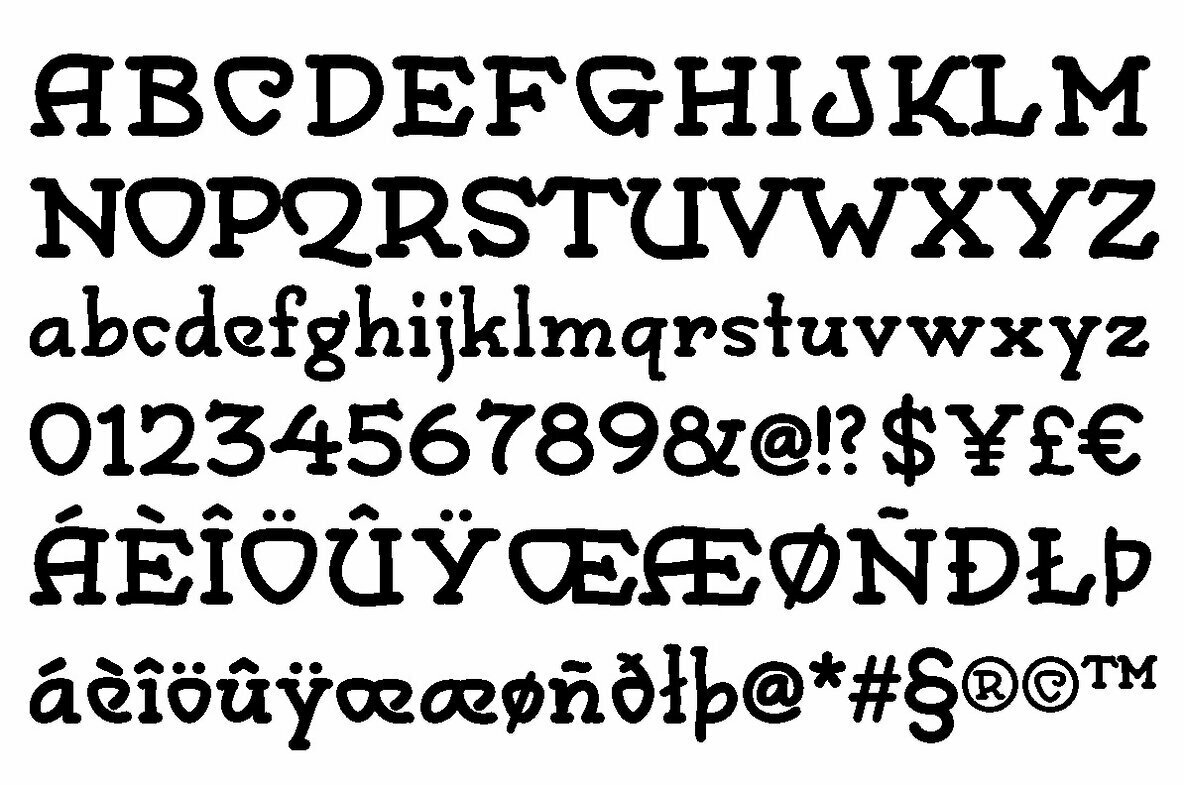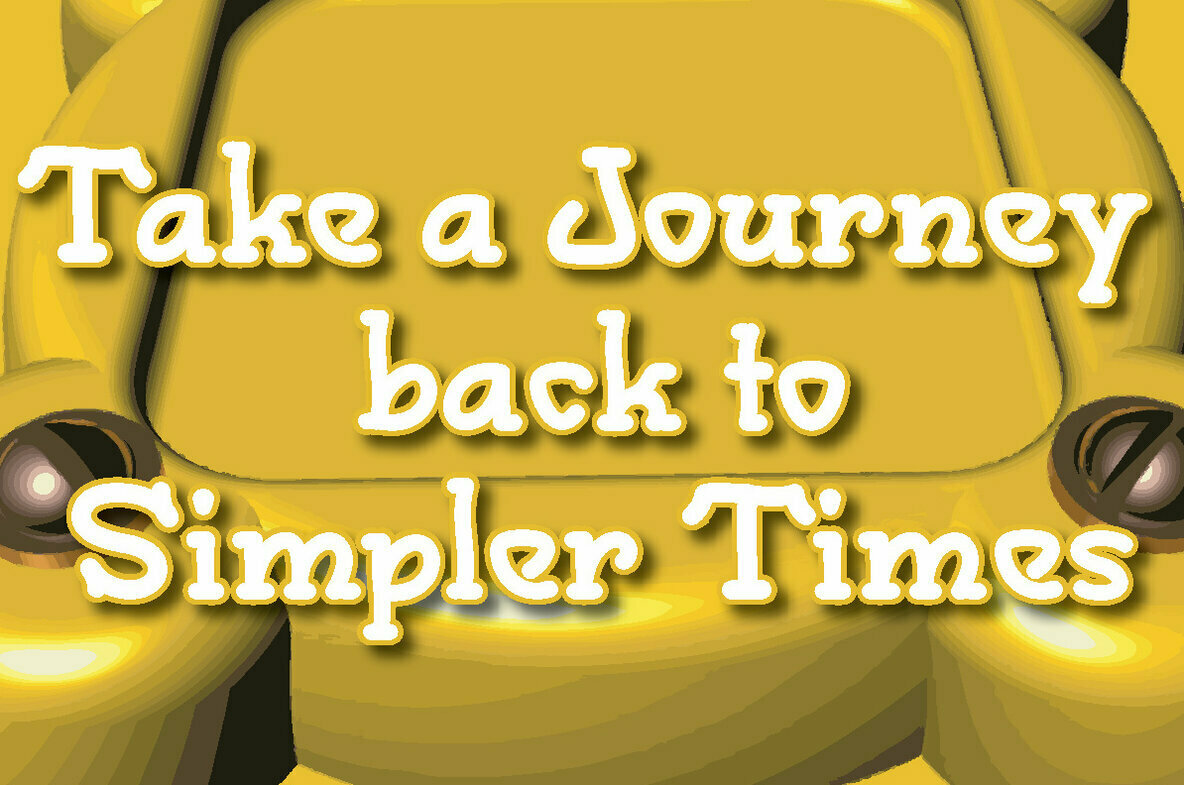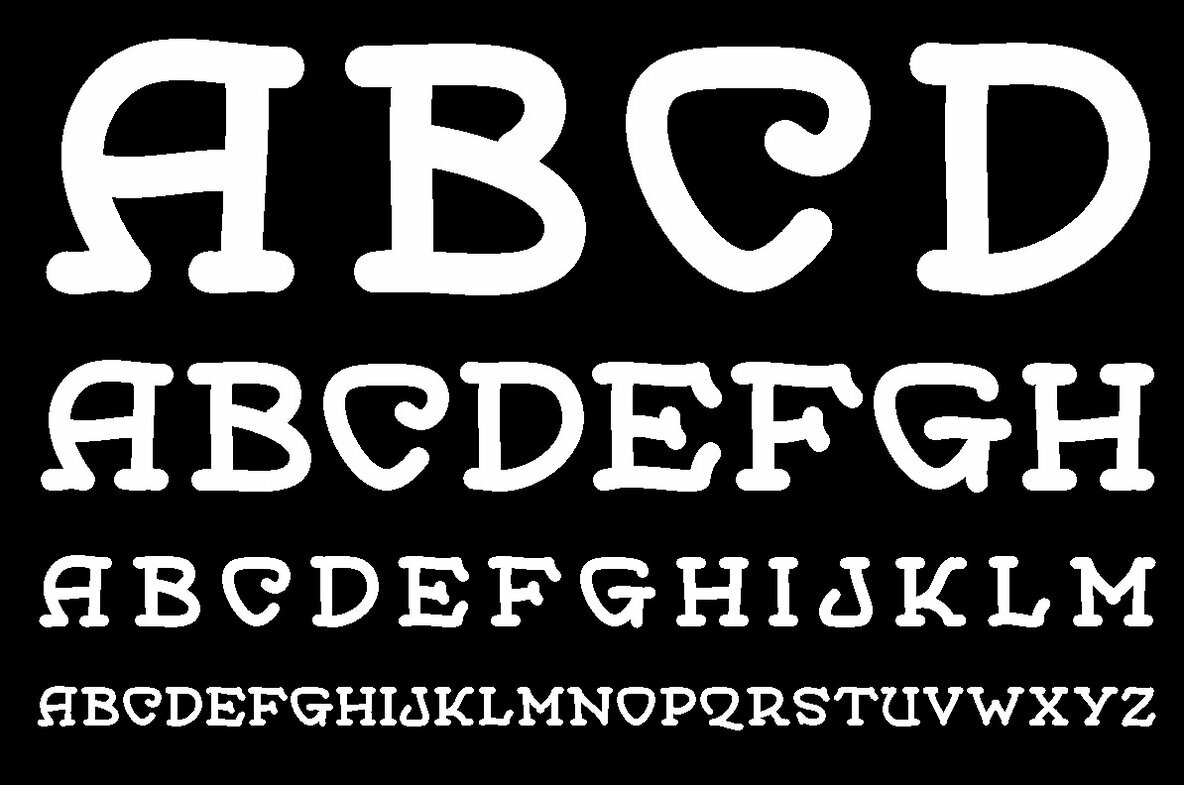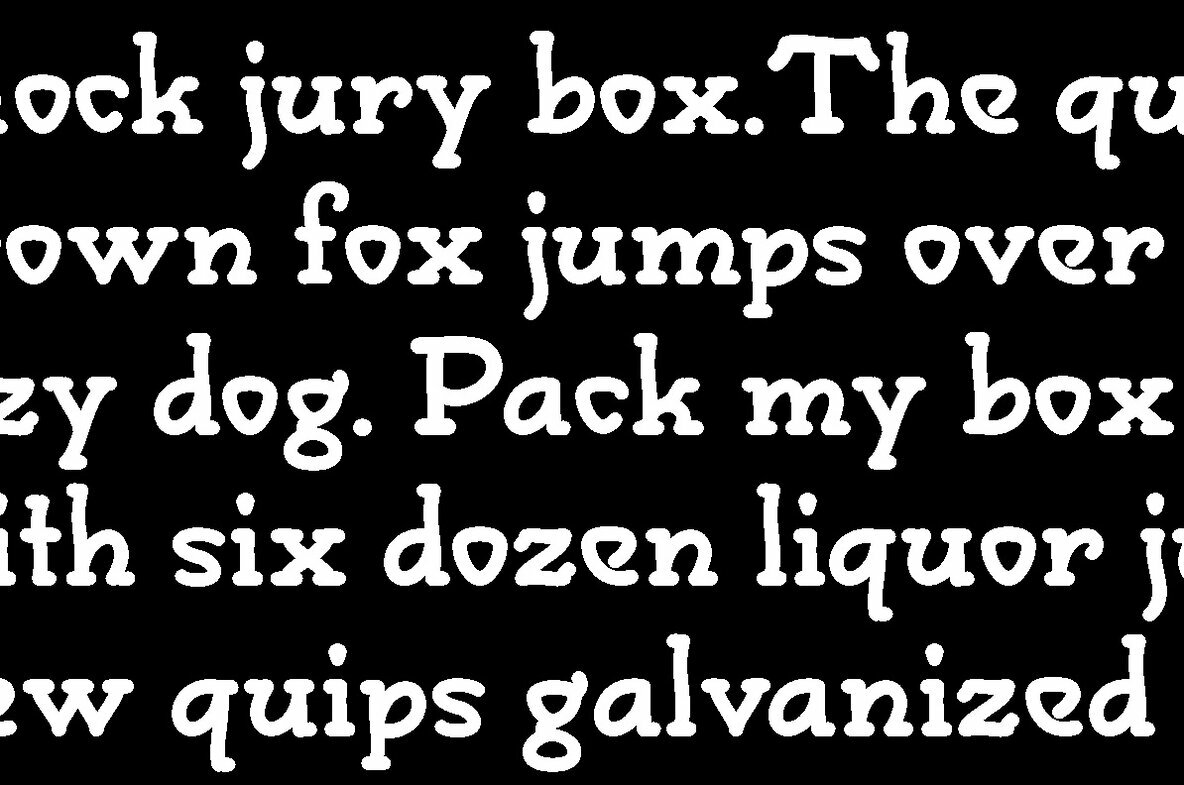
Monograph Font
Monograph Regular
For me, Monograph conjures ancient typewriters, telephone switchboards, vintage office machines past visions of the future. As though it were drawn with the rounded nib a of a Speedball "B" style pen, the soft curves and rounded serifs speak of a gentler less complicated time: a respite from the ever-changing, constantly accelerating future we face today.
Though difficult to place in a specific design idiom, it is nuanced with traces of the Arts and Crafts movement at the turn of the 20th Century which stressed craftsmanship and preserving and emphasizing the qualities of construction and materials.